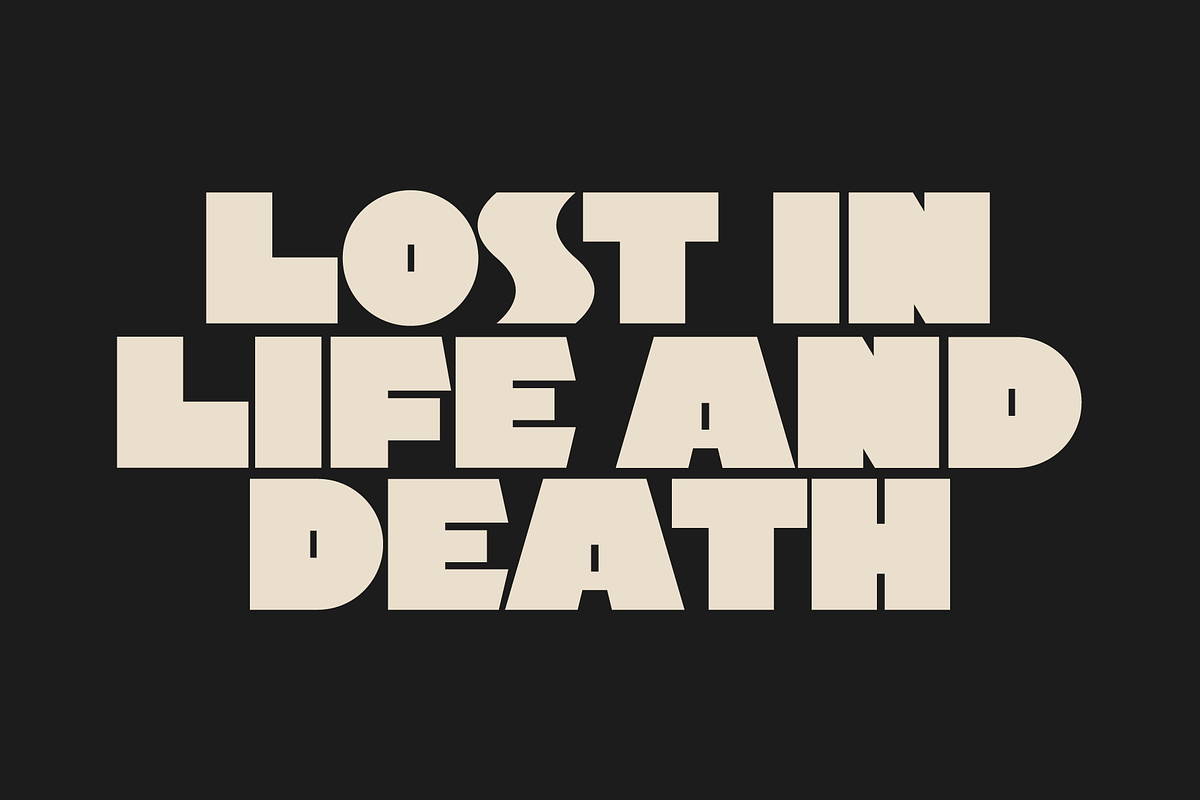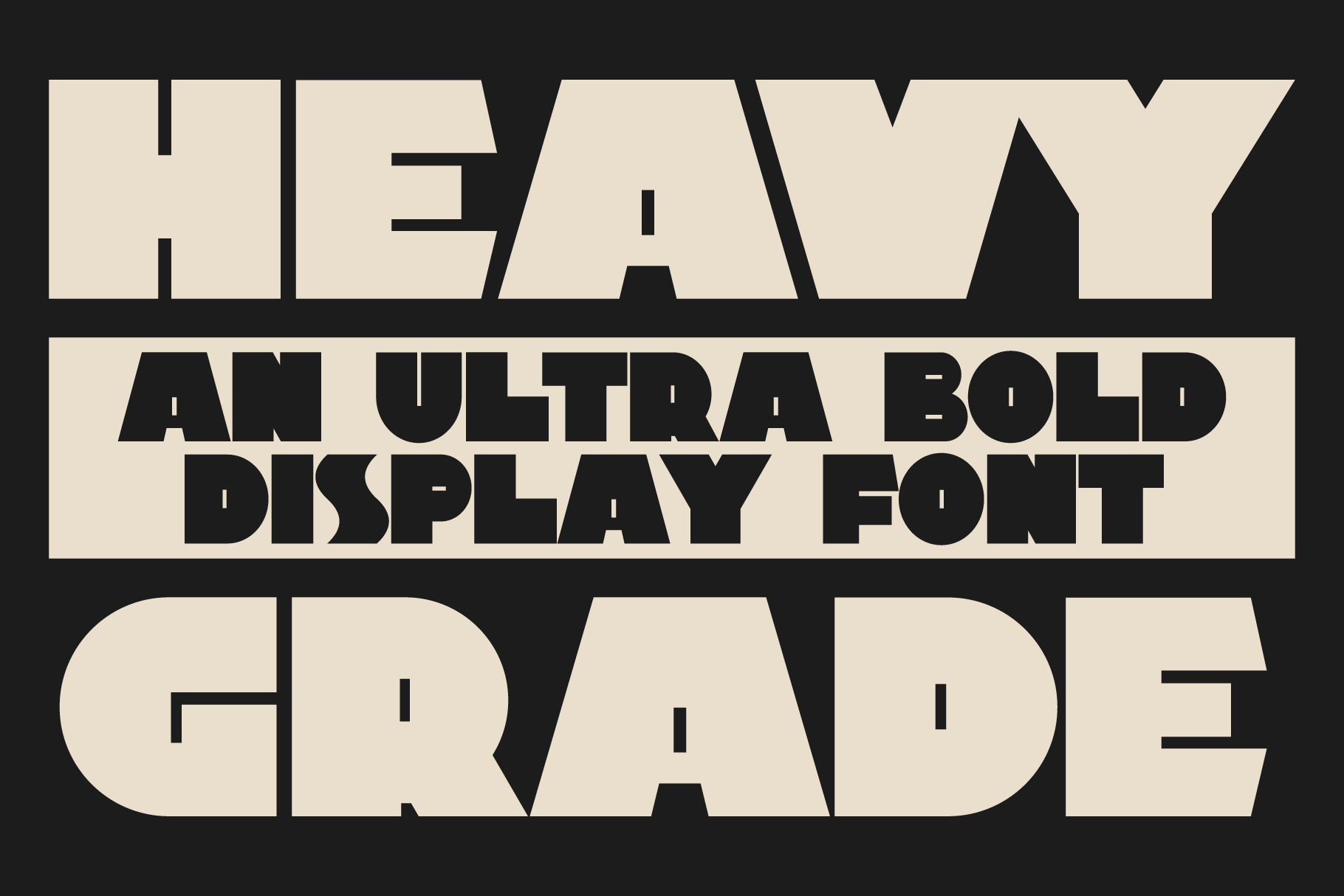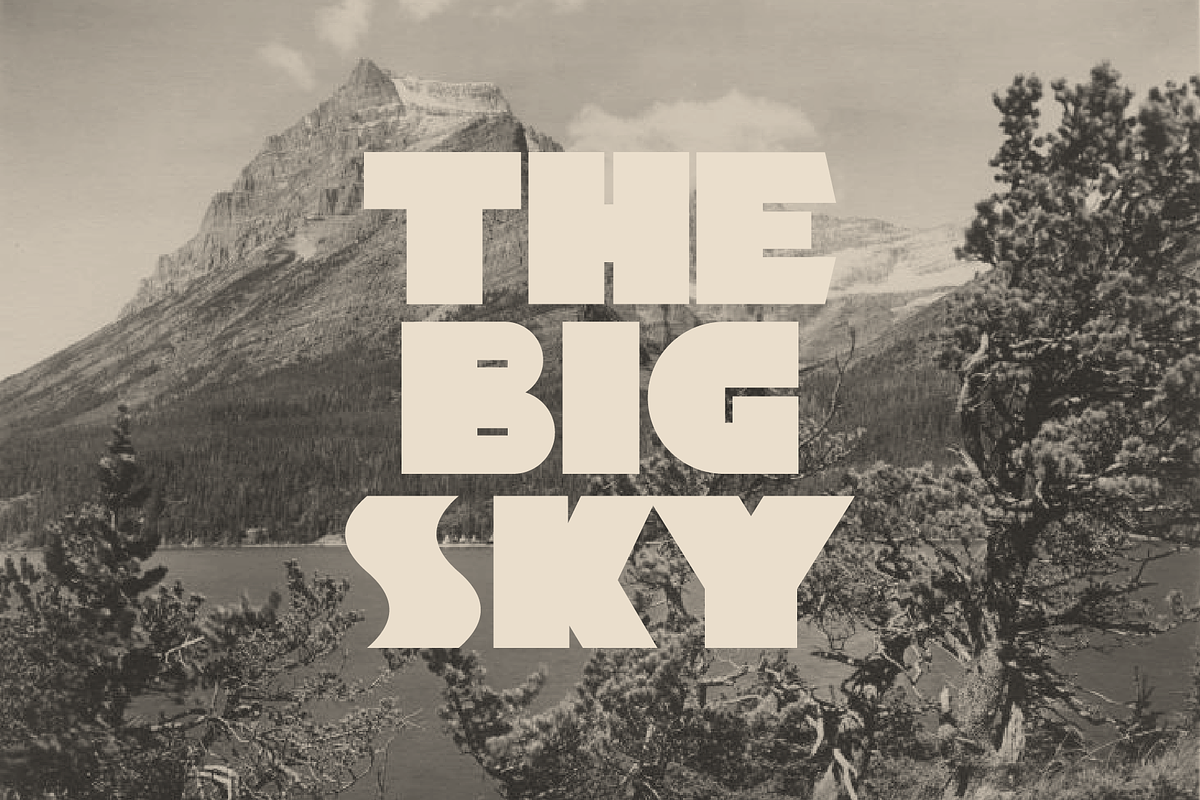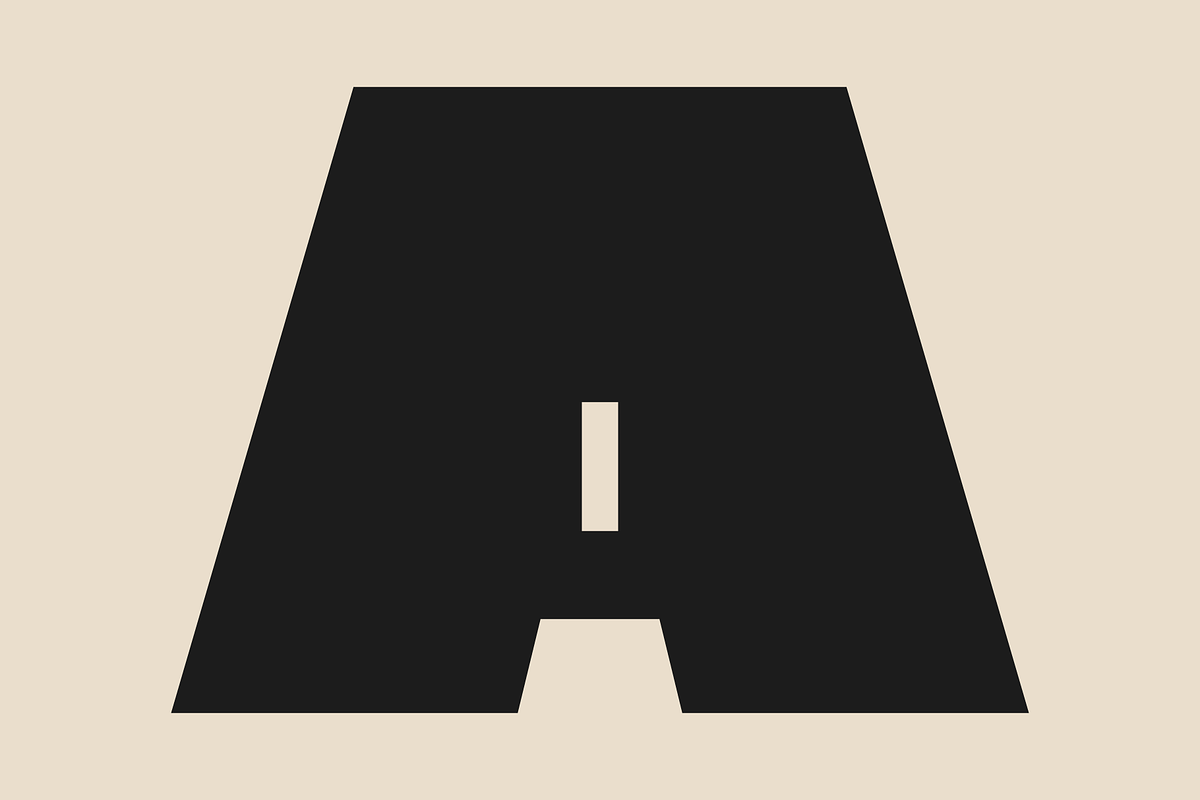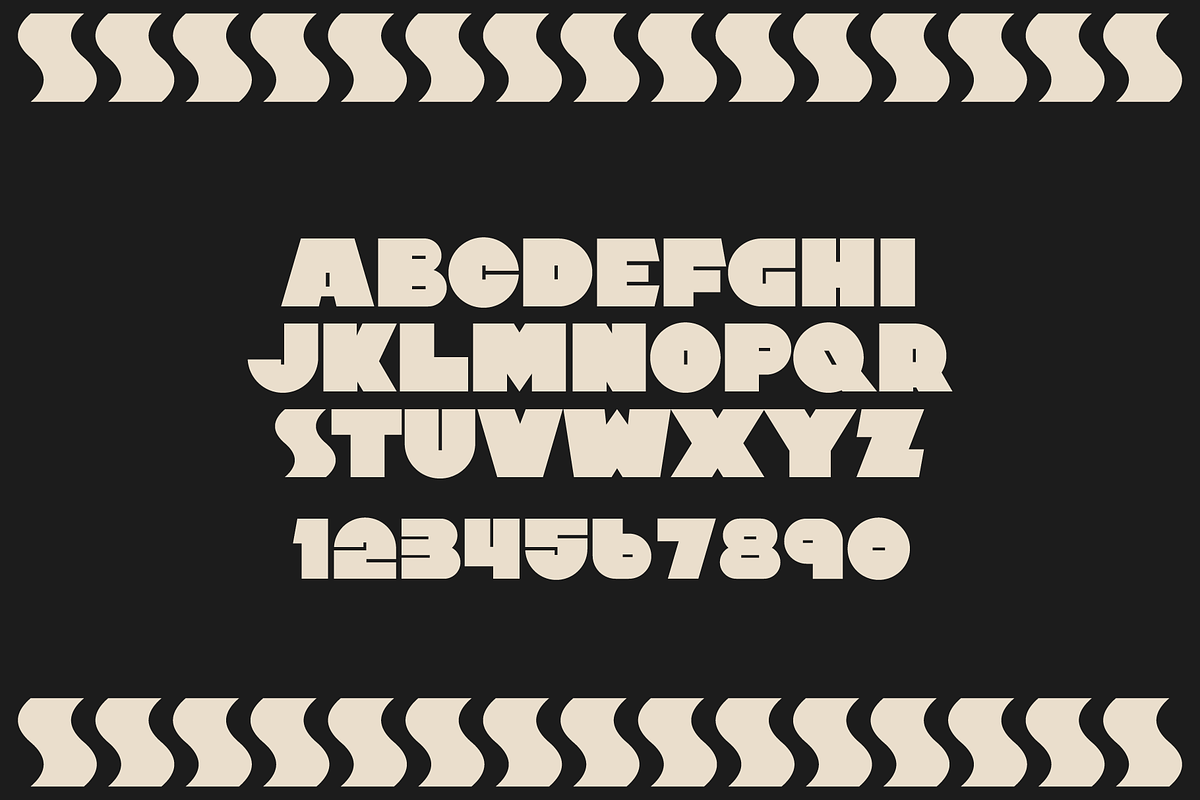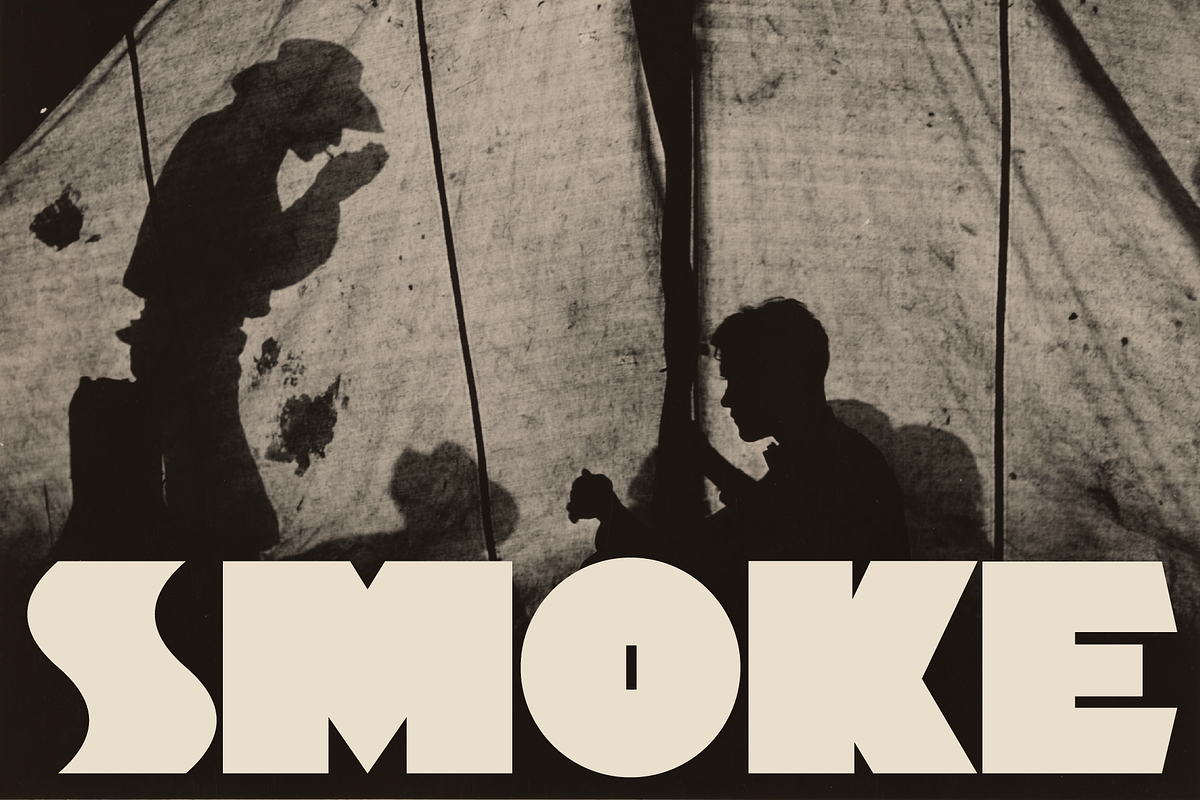
Heavy Grade - Display Font
Having trouble finding a font bold enough for your project? Well, look no further. Heavy Grade is an ultra-bold display font with geometric yet playful letterforms. Perfectly weird and impactful.